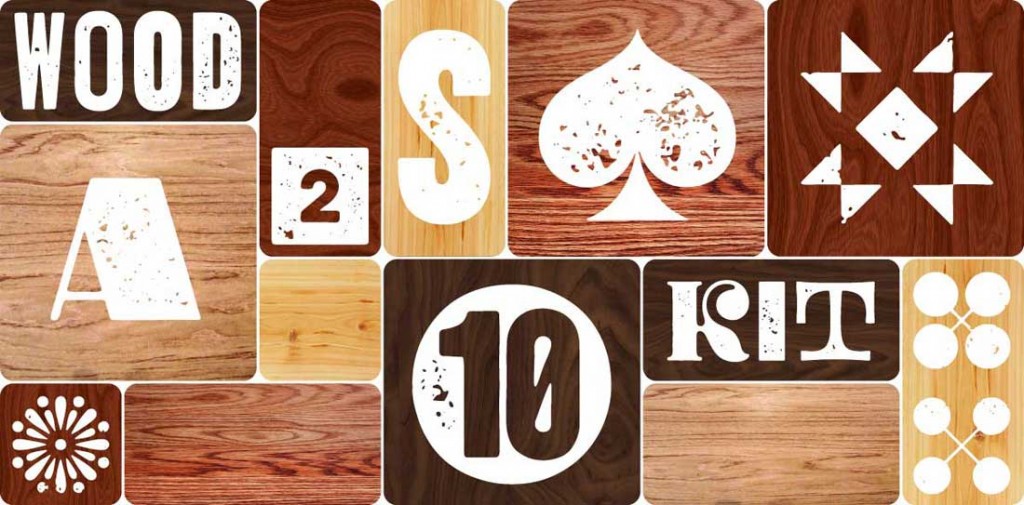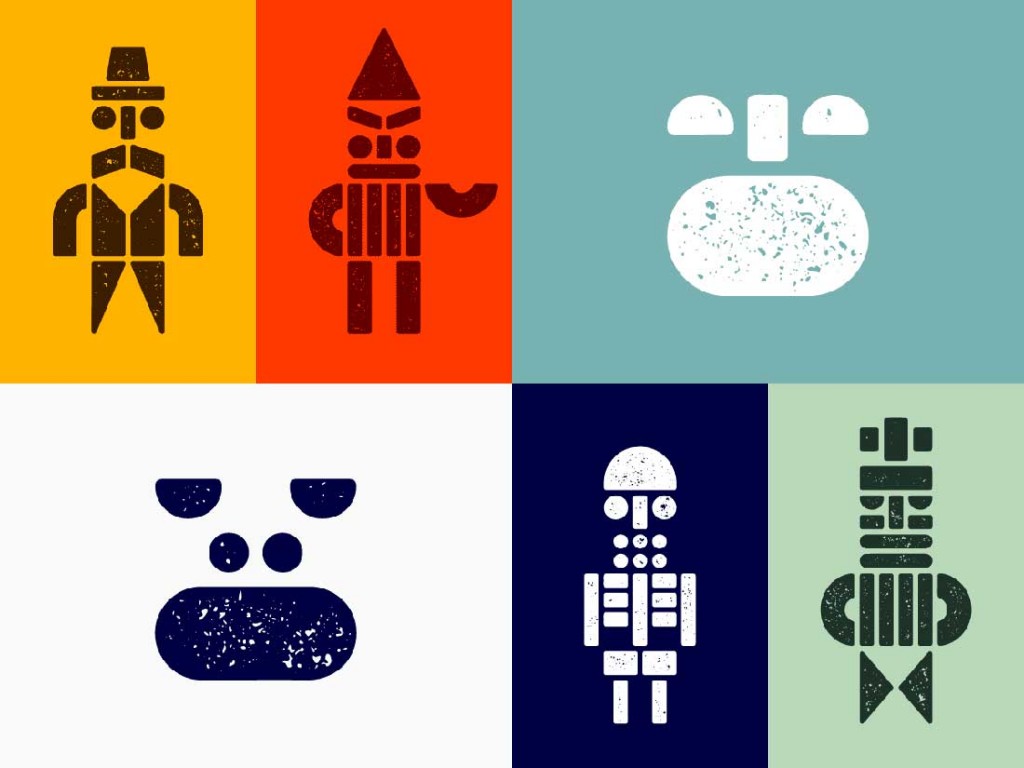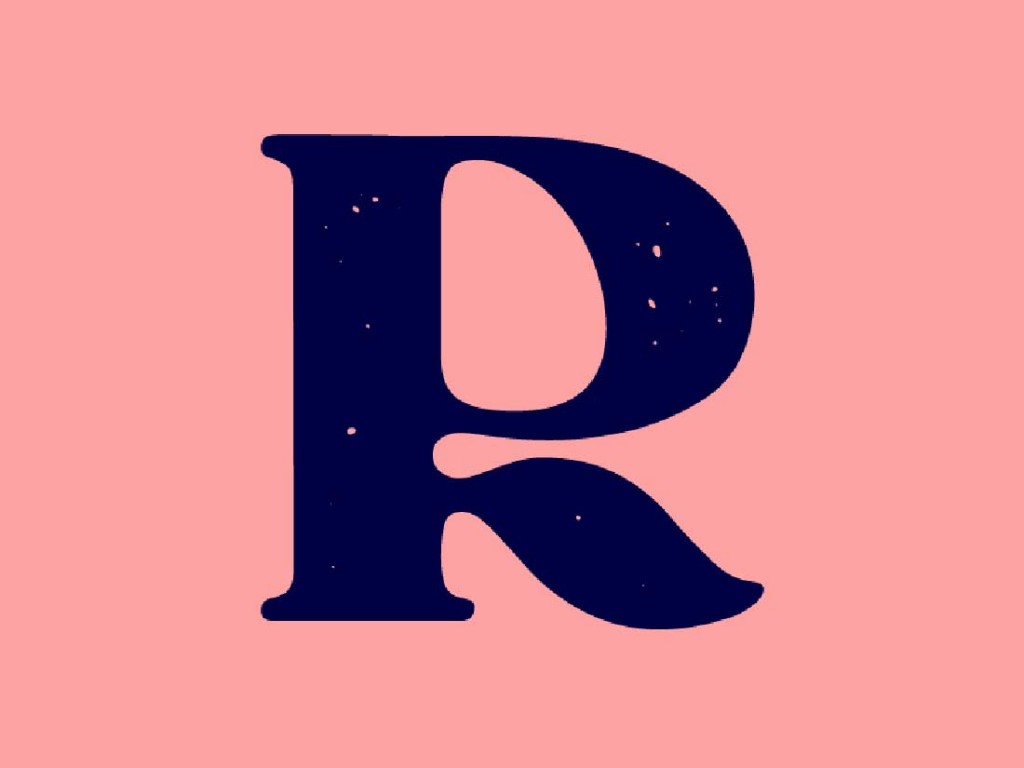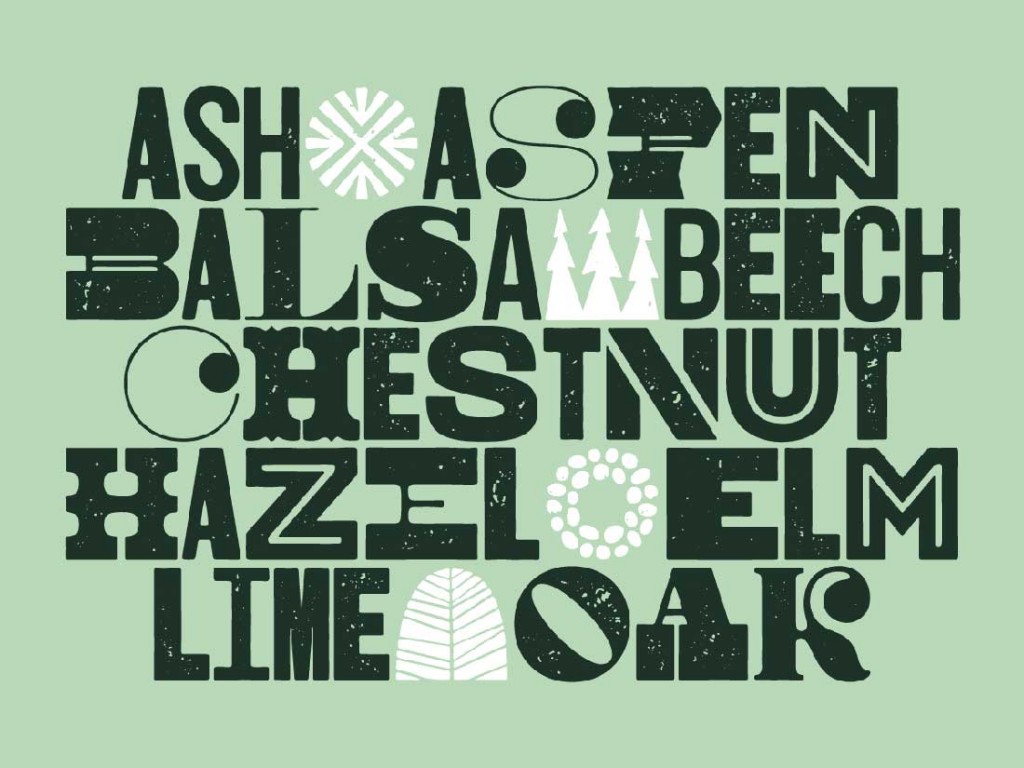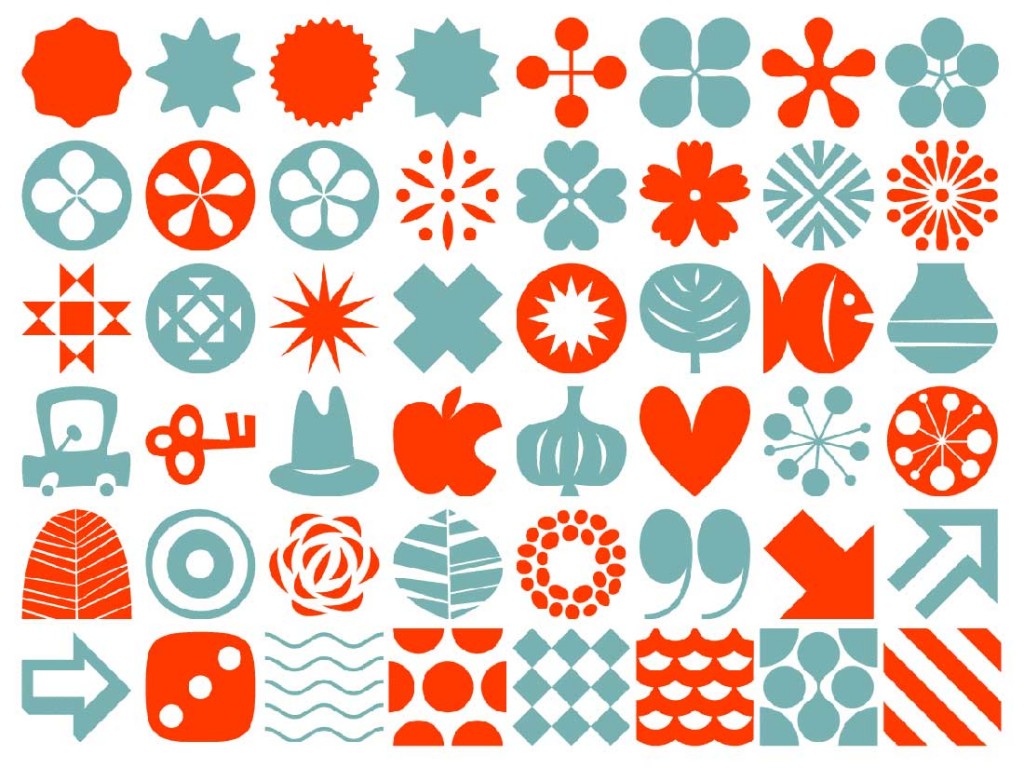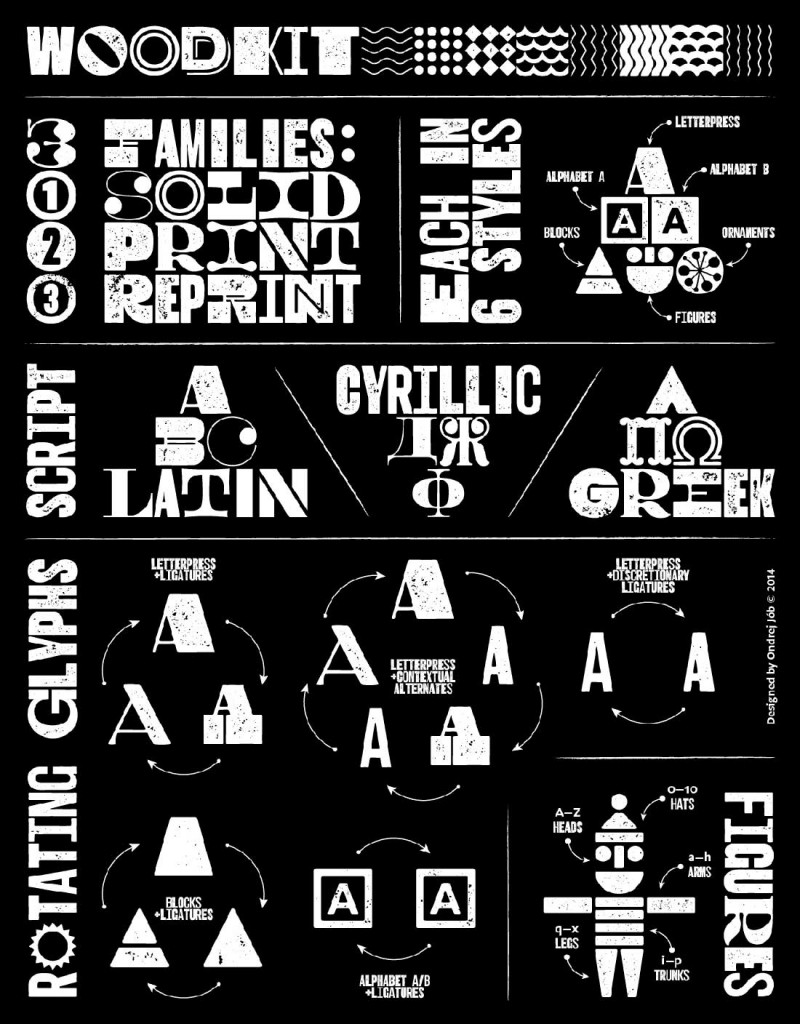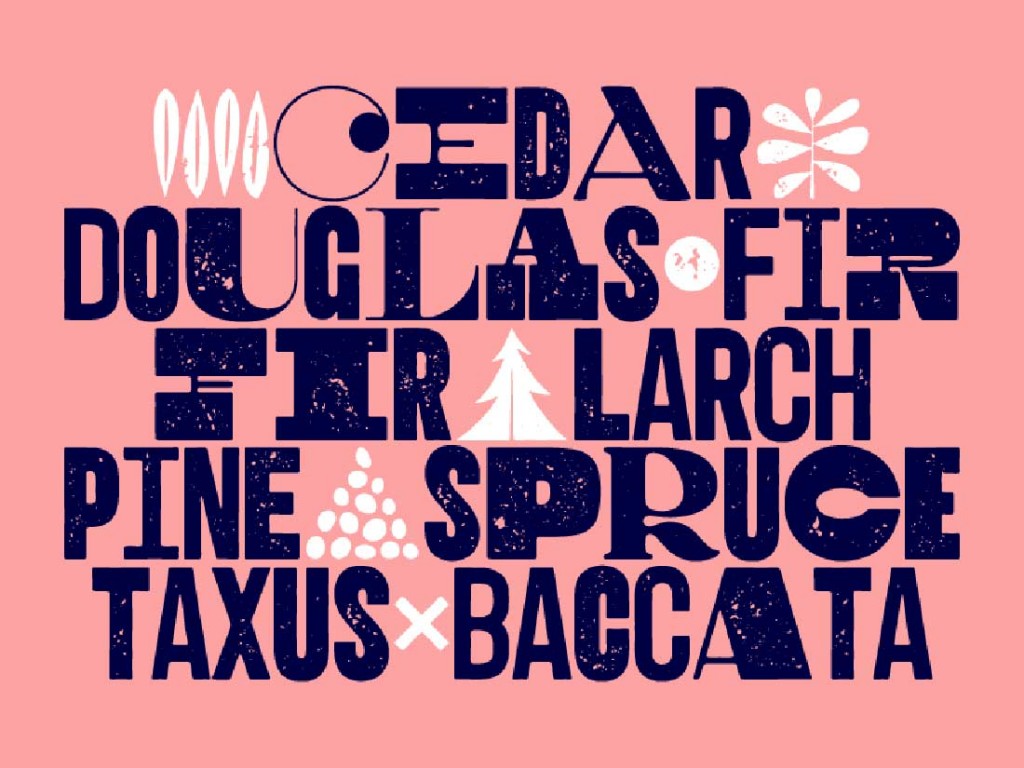
Name: Woodkit
Designer: Ondrej Jób
Foundry: Urtd
Release Date: October 20, 2014
Back story: Woodkit got its start as a custom logo for a new online shop selling wooden home accessories. “I came up with a logo constructed from simple blocks,” says Jób. “I love quick projects like this one, but I tend to complicate them for myself. Once I got the idea, more styles started to pop up in my head, resulting in an extensive kit of letters, shapes, ornaments, and patterns. There are six styles in each of the three Woodkit families: Letterpress, Alphabet A, and B, Blocks, Figures, and Ornaments. Just for fun, I built a whole alphabet, then a second and a third set, then numbers, and I only stopped after Greek and Cyrillic were done.” Seriously, Cyrillic.
Why’s it called Woodkit? You know why. Besides the simple fun of playing with blocks, Woodkit draws upon the typographic richness of 19th-century wood type posters with their riot of styles, colors, and sizes.
What are its distinguishing characteristics? The typeface’s warm, friendly appearance is the result of an energetic mix of characters that seem to come from a huge selection of different printer’s cases, but were really meticulously planned out by the designer himself. Every glyph fills a square horizontally and vertically like a real wooden block. According to Jób’s blog, “When typing with basic ligatures turned on, the font automatically rotates between three different versions for each letter or number. When two of the same glyphs are typed together, the font replaces them with their narrow variants so they fill just a single square together, adding a little bit of spice.” And thanks to some remarkably well-conceived contextual and discretionary ligature settings, you can even create a full text document where no two words look alike.
What should I use it for? Posters! Menus! Websites! Book covers! Retail identities from children’s merchandise, to sophisticated furnishings (especially of the handcrafted variety), to cultural institutions.
Who’s it friends with? According to Jób, “Woodkit is a piece of typography as much as it is an illustration, so I guess there are no bad combinations.” Agreed! He recommends an old-style serif such as Garamond, and also especially likes it with an upcoming sans serif version of another one of his typefaces, Doko which is 95% finished and is scheduled for release later this spring (you can sneak a preview now, though).